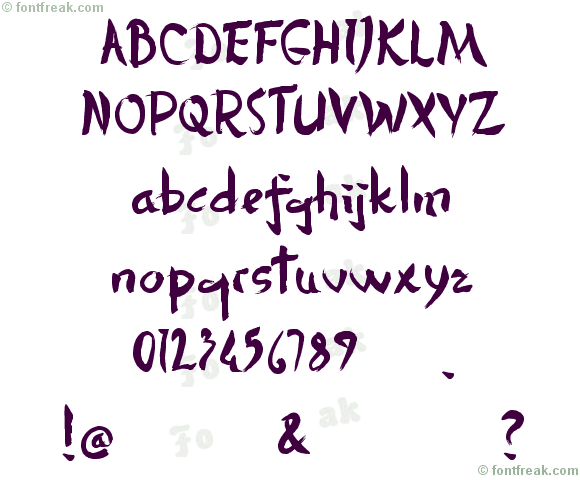
Dersu Uzala brush
Dersu Uzala brush is a unique handwritten font designed by Roland Huse, falling into the category of script fonts. Its artistic flair captures the essence of brush lettering, showcasing a delightful balance between spontaneity and elegance. The font features varied stroke weights that lend a dynamic quality to each letter, while the slight contrast in thickness enhances its visual appeal. The spacing between characters is carefully crafted, allowing for fluidity in reading while maintaining an artistic touch. Decorative elements, such as the elongated tails and whimsical curves, contribute to its distinctive personality, making it a perfect choice for creative projects.
This font shines in a variety of contexts. It is particularly well-suited for wedding invitations, where its romantic and personal style can evoke a sense of warmth and intimacy. Additionally, Dersu Uzala brush is an excellent choice for movie posters, especially in genres like romance or drama, where conveying emotion is key. Restaurant menus can also benefit from its artistic flair, adding a touch of sophistication to any culinary offering. Furthermore, content creators looking to enhance their social media graphics or branding materials will find this font to be a versatile asset.
Target audiences for the Dersu Uzala brush font include graphic designers eager to add a personal touch to their projects, small business owners aiming to create an inviting brand image, and content creators who want to stand out in a crowded market.
What sets the Dersu Uzala brush font apart is its ability to blend artistic expression with readability. Its unique characteristics make it not just a typeface, but a tool for storytelling, allowing creators to convey emotions and capture attention effortlessly. For those interested in enhancing their design projects, the Dersu Uzala brush font free download is an opportunity not to be missed.